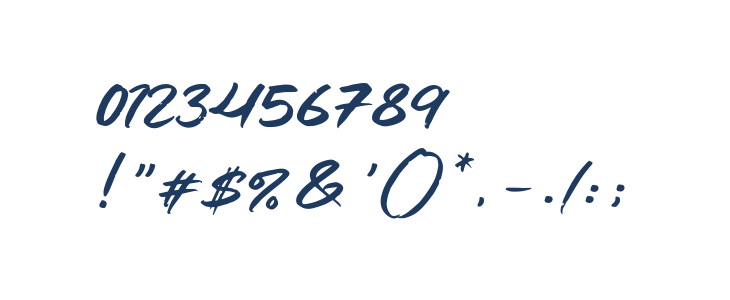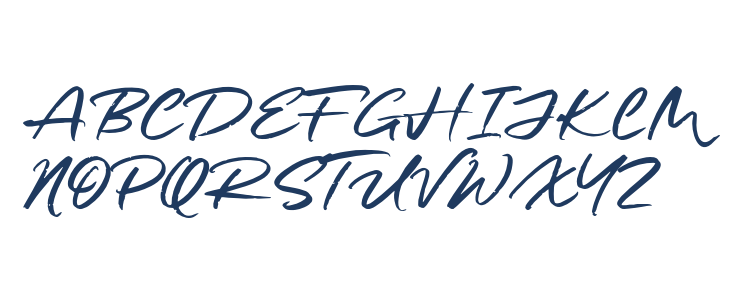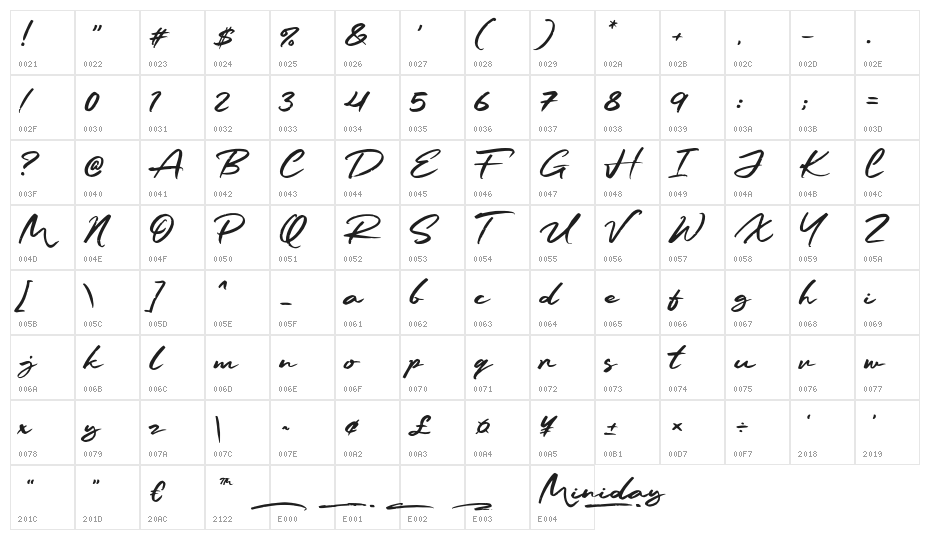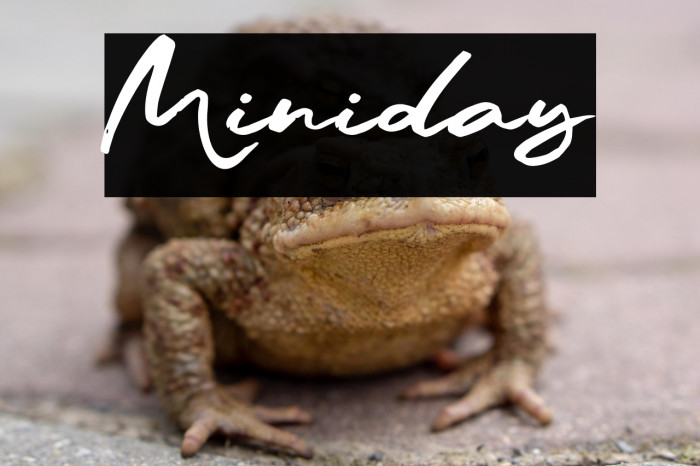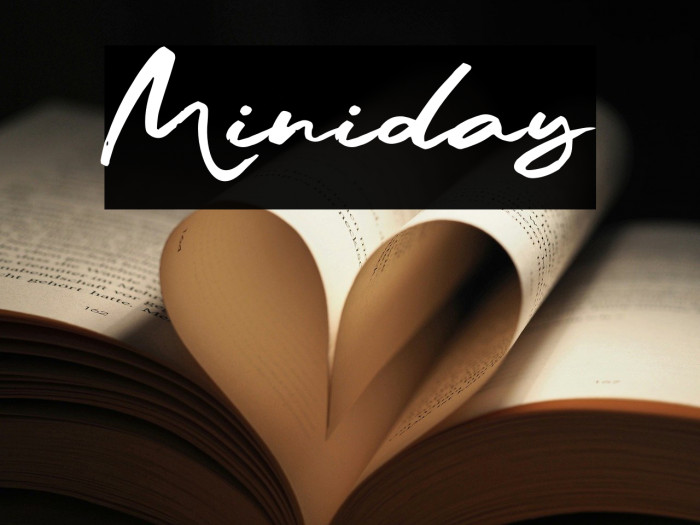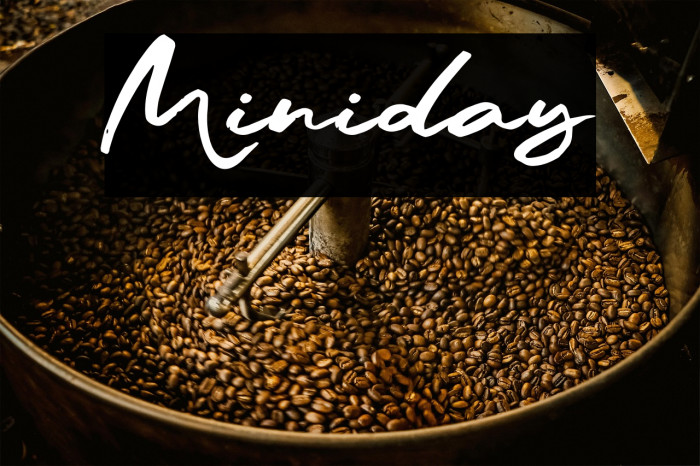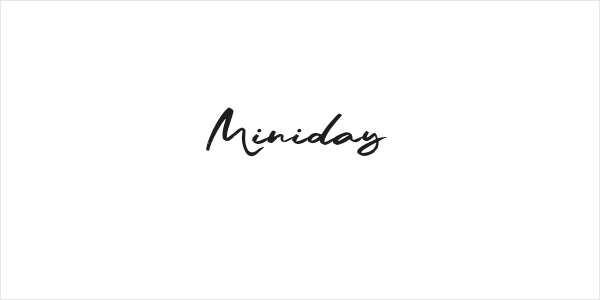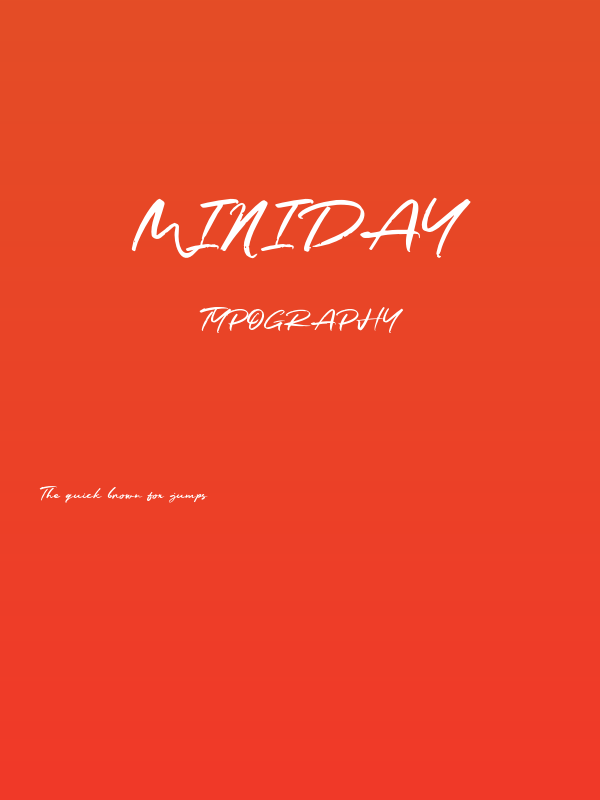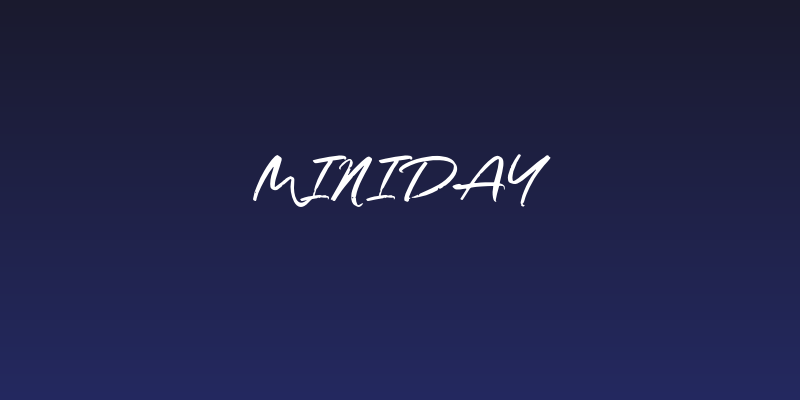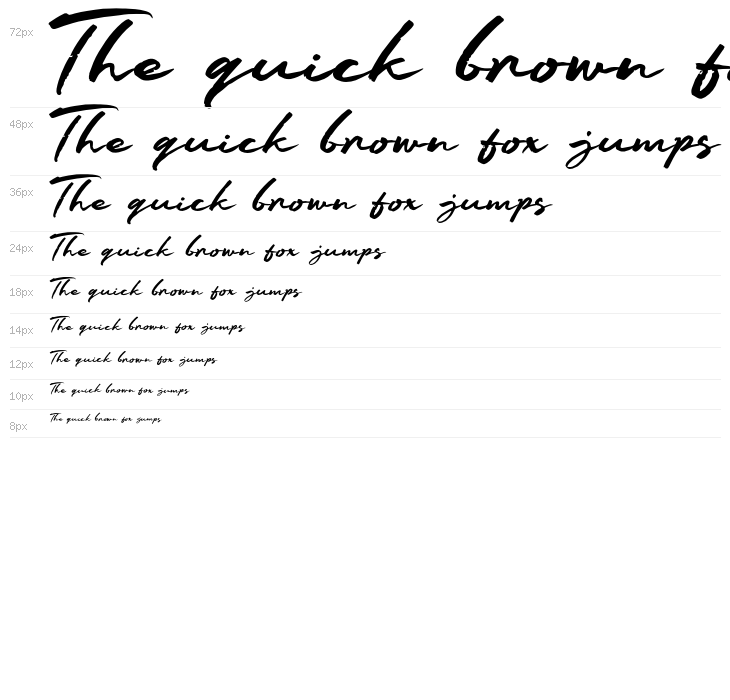
Miniday Font
Miniday Description
A dynamic, handwritten script font with fluid, connected strokes and a casual, energetic appearance. The letters feature moderate slant and varying stroke thickness, mimicking natural handwriting with expressive curves and loops.
| Overall Style | Decorative, Casual, Modern |
| Use Case | Logos, Headlines, Invitations, Posters |
| Proposed Projects | Greeting cards, invitations, personal branding, quotes, posters, social media graphics. |